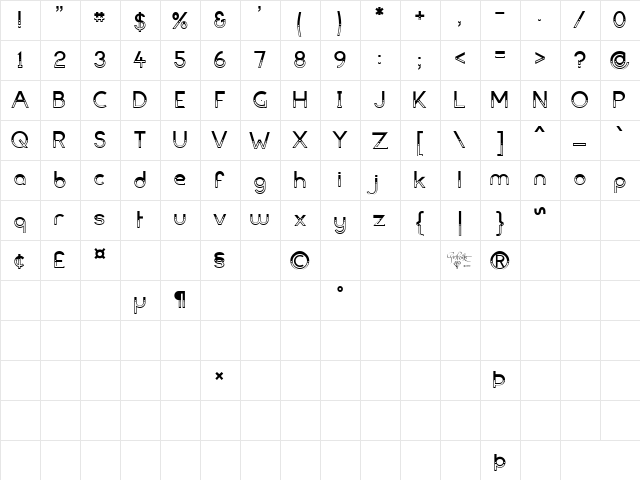
Dark Bastion Regular Font Preview
Dark Bastion Regular
Design Context for Dark Bastion Typeface
Dark Bastion takes a measured approach to typography — its balanced proportions and neutral character make it a reliable workhorse for both digital and print work.